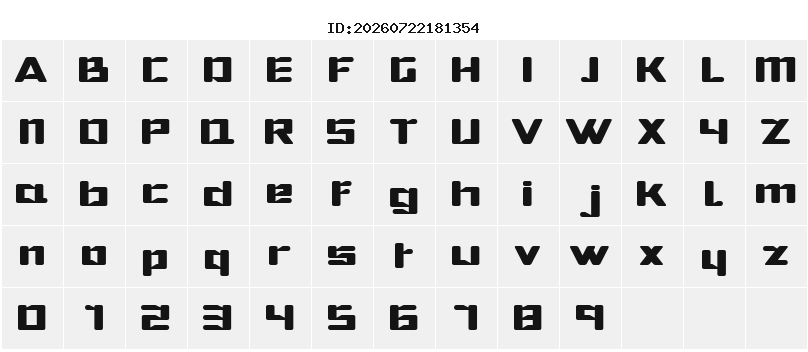
• Font Name: JI-Hansas
• Designer: JupiterImages
About JI-Hansas.ttf
JI-Hansas.ttf is a modern, elegant sans-serif font designed for ultimate readability and visual harmony. Perfect for branding, headlines, web design, and print materials.